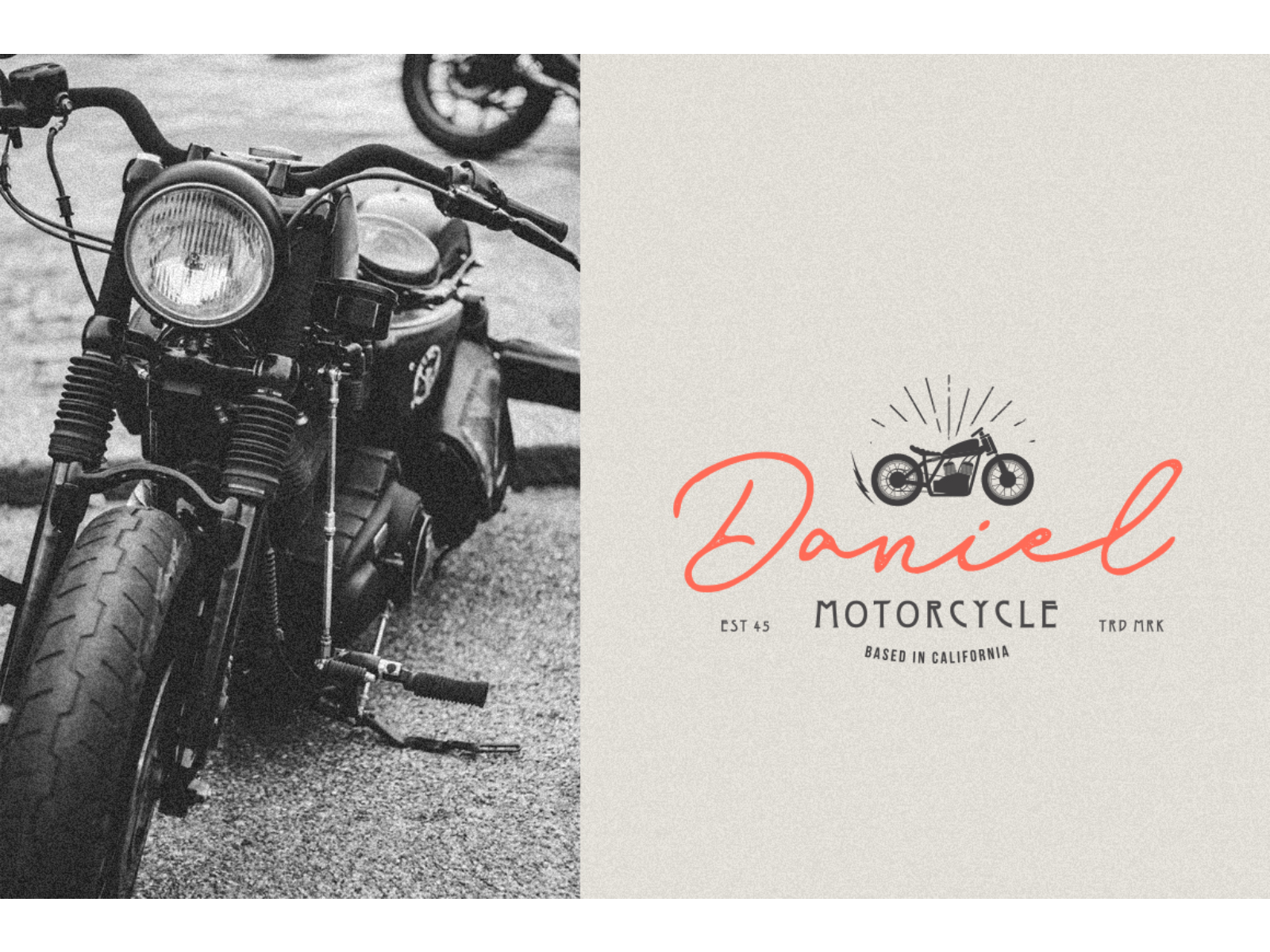
Old Bridges - Vintage Script Font
The perfect logo design uses an old bridges font. Old Bridges Script allowing you to create hand lettering is an instant and a super handy